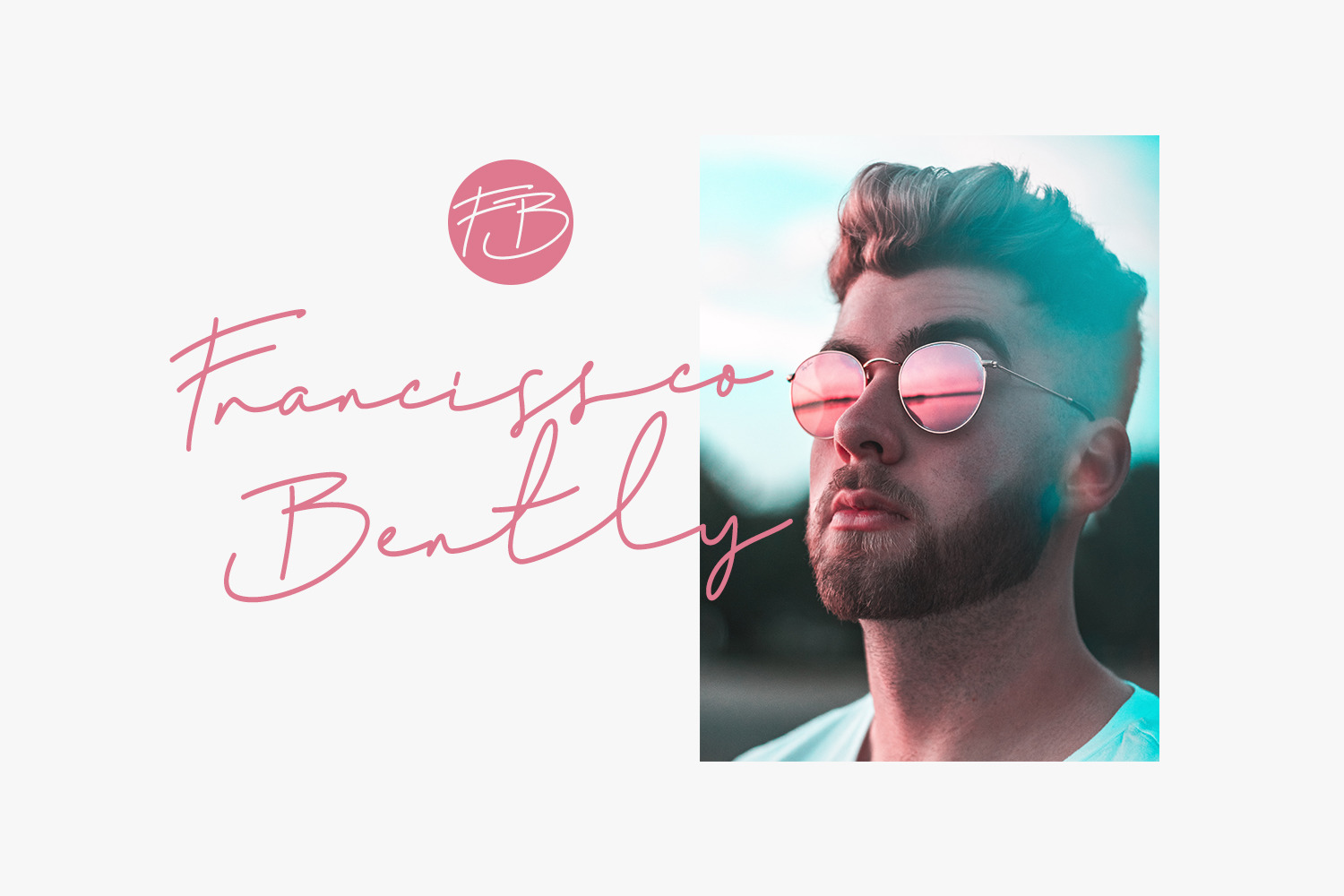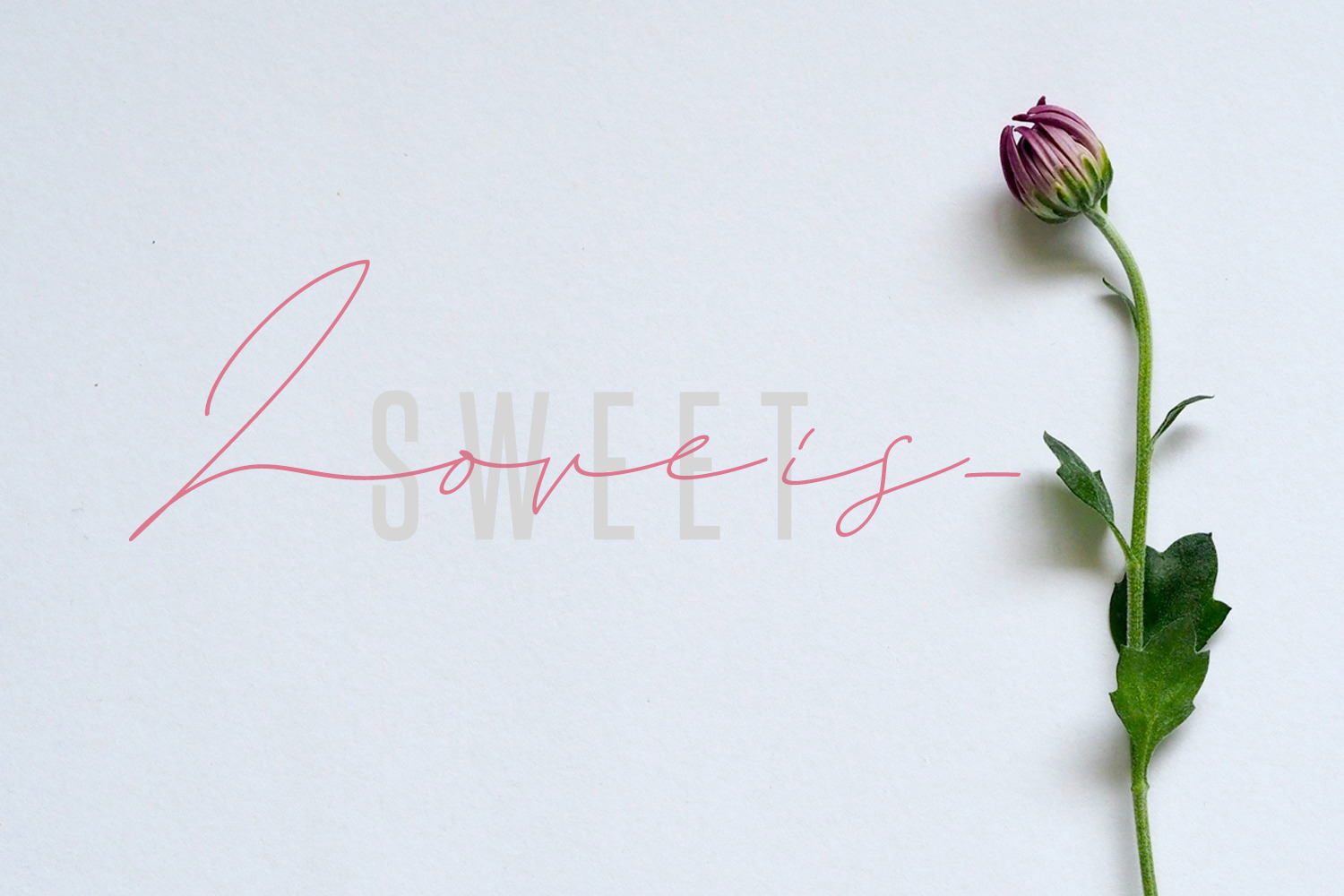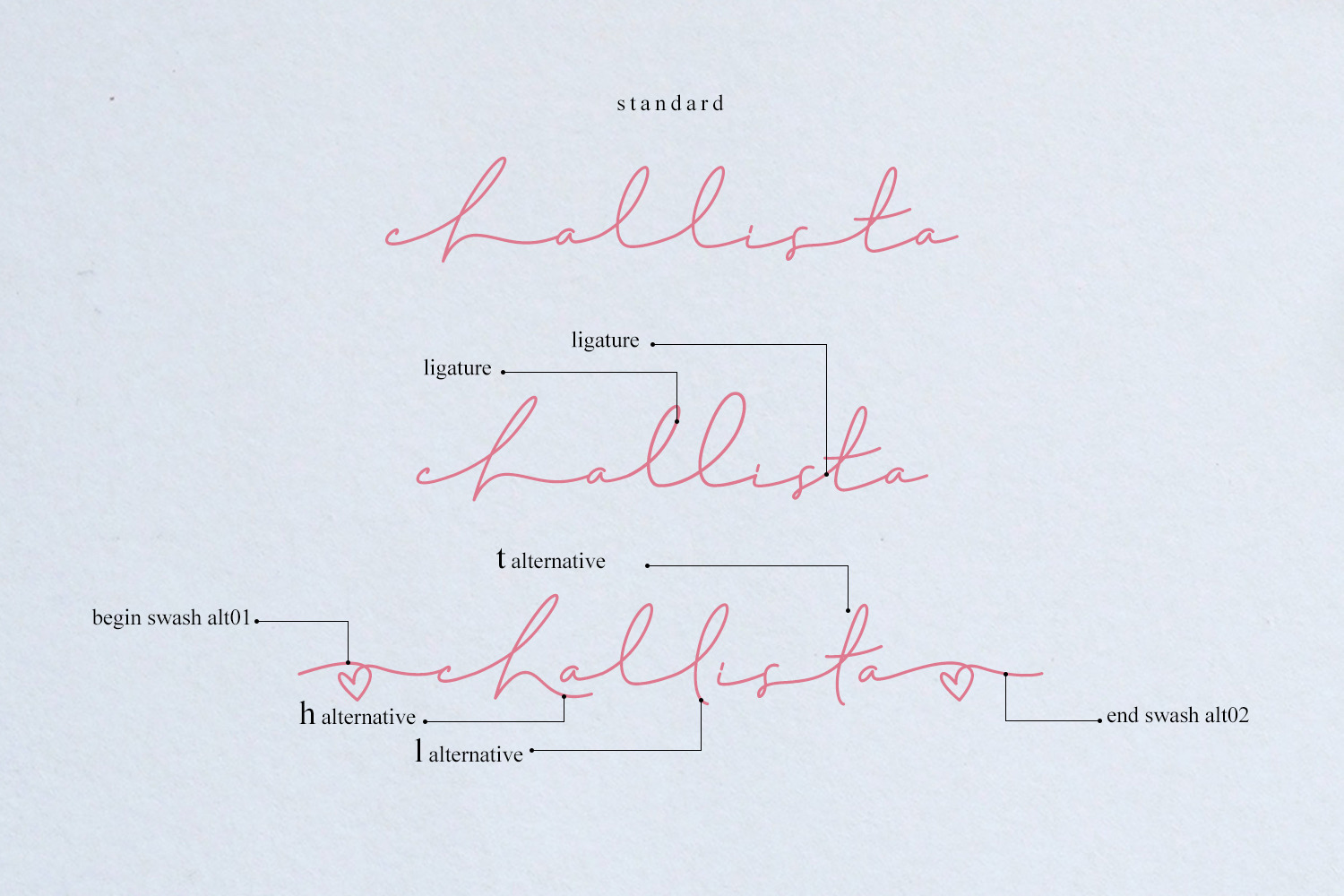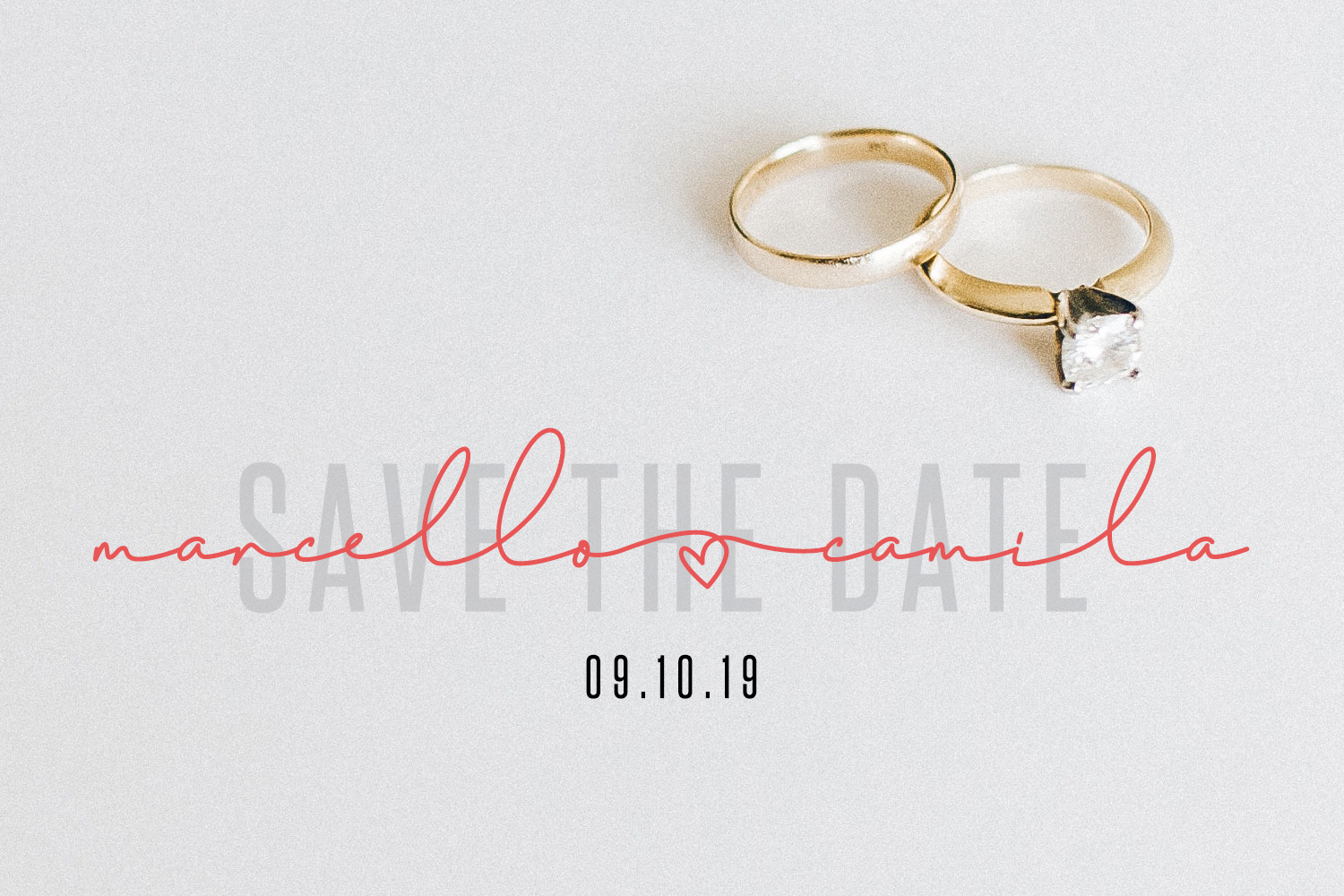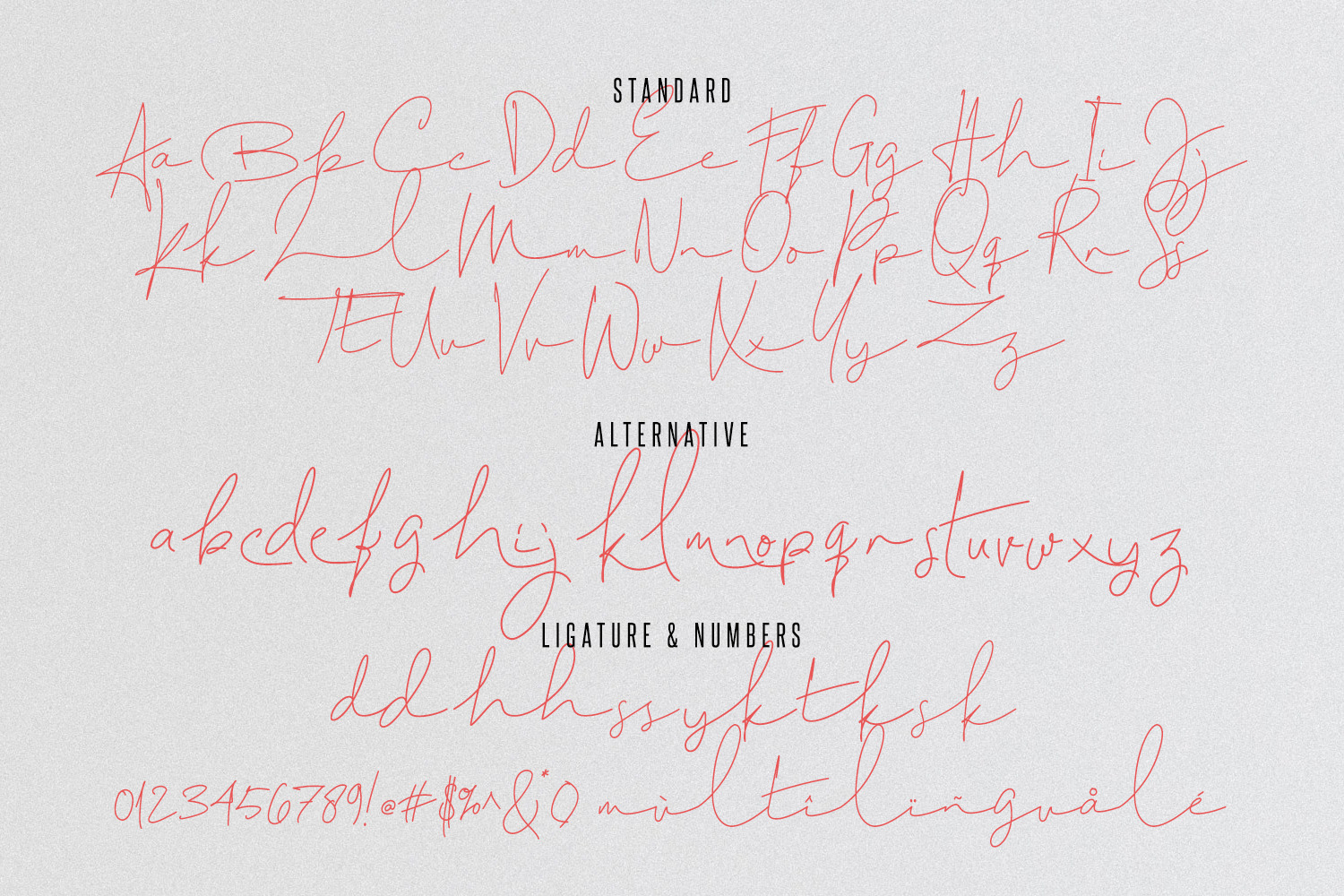
Challista Signature Font
Introducing Challista is bolpoin handmade signature font VOL.4. Challista Signature includes more than 30 ligatures to make everything look natural handmade signature.This font perfect for poster design, book covers, merchandise, fashion campaigns, newsletters, branding, advertising, magazines, greeting cards, album covers, and quote designs and more.
Feature
- Number & Symbol
- International Glyphs
- Ligature
- Extra